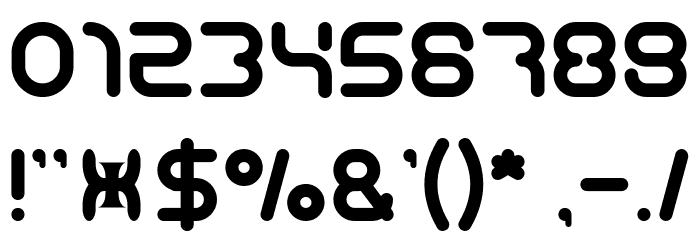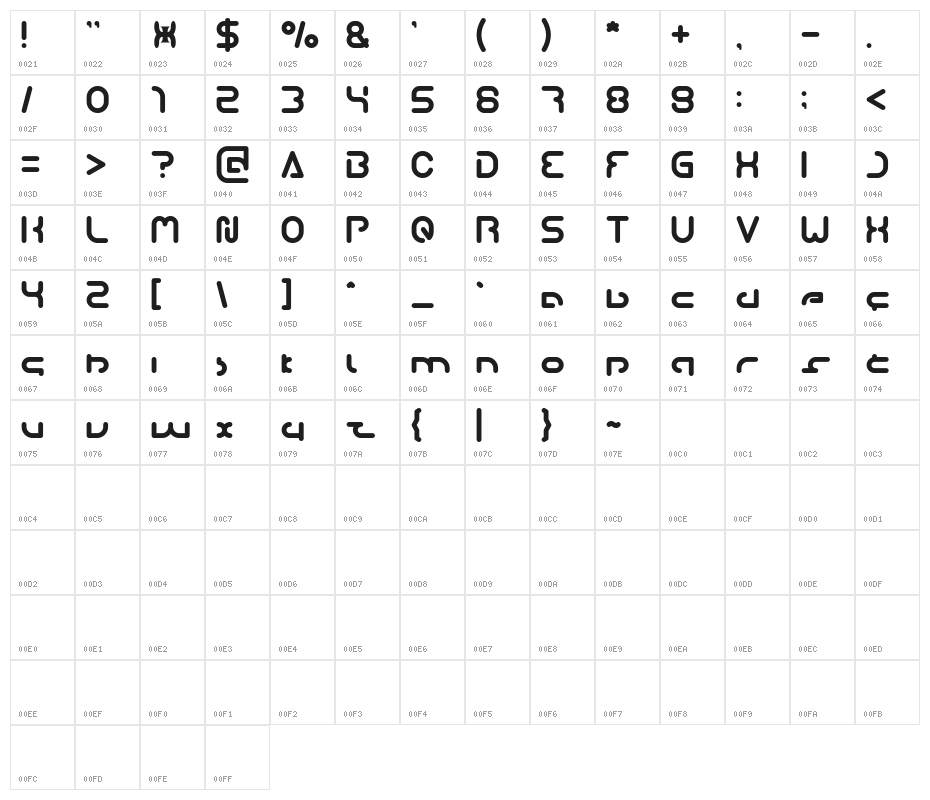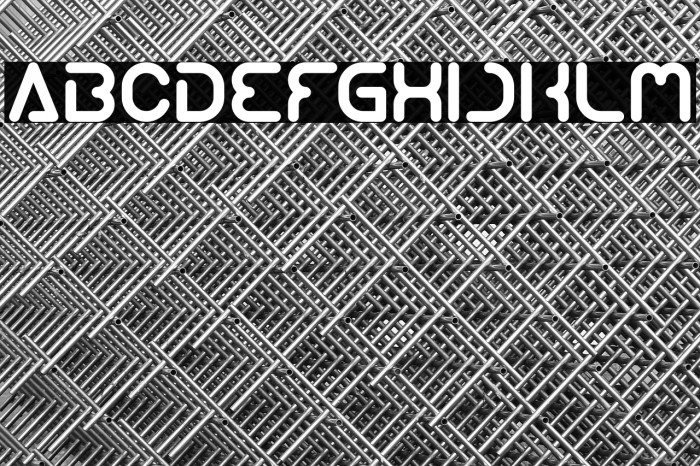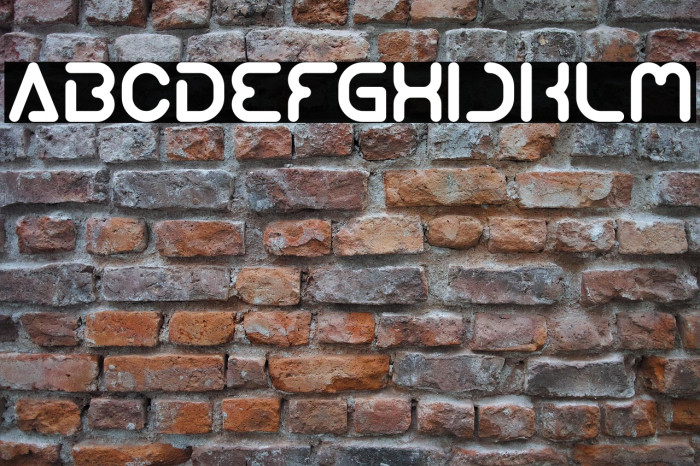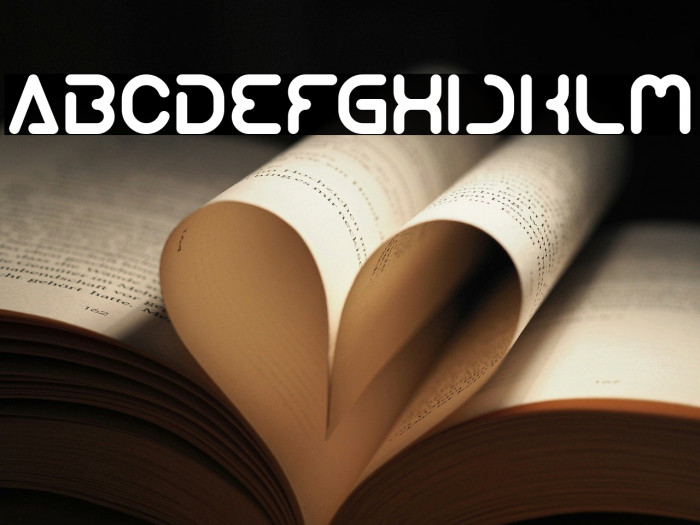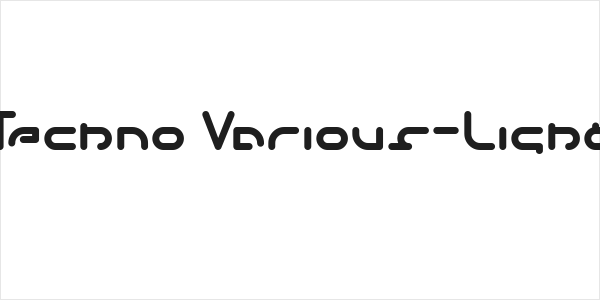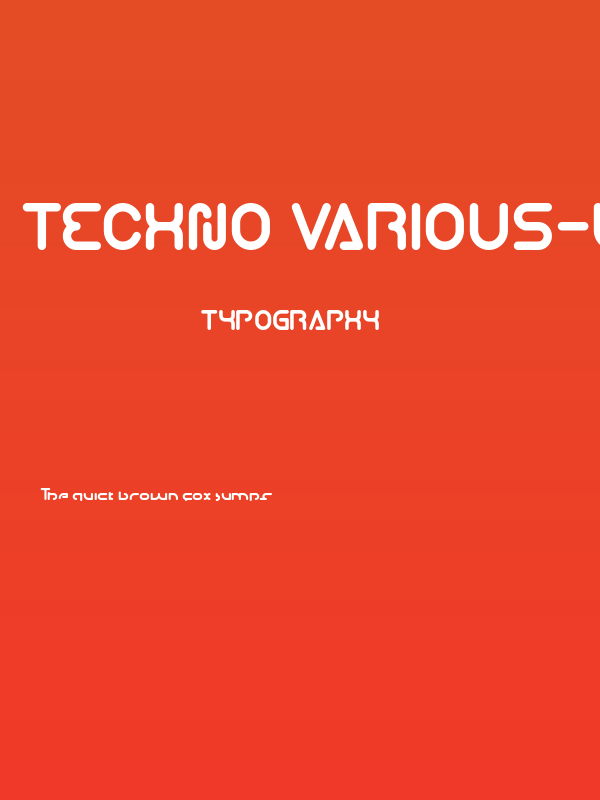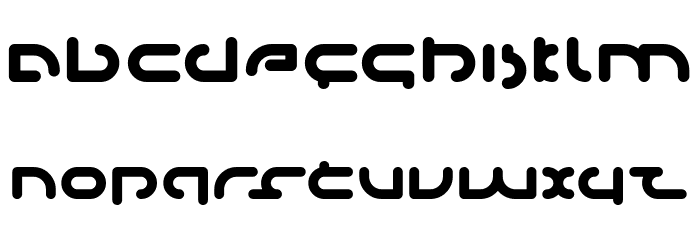
Techno Various-Light Font
Techno Various-Light Description
This font features a futuristic and geometric design, characterized by rounded edges and a consistent stroke width. The letters have a distinct techno-inspired aesthetic, with a modern and sleek appearance. The uppercase and lowercase characters maintain a uniform style, enhancing readability while providing a unique visual appeal. The numerals and special characters are designed to match the overall theme, making them suitable for digital and tech-related projects. The font's clean lines and contemporary look make it ideal for use in technology branding, digital interfaces, and modern advertising.
| Proposed Projects | Ideal for technology branding, digital interfaces, modern advertising, and sci-fi themed projects. |